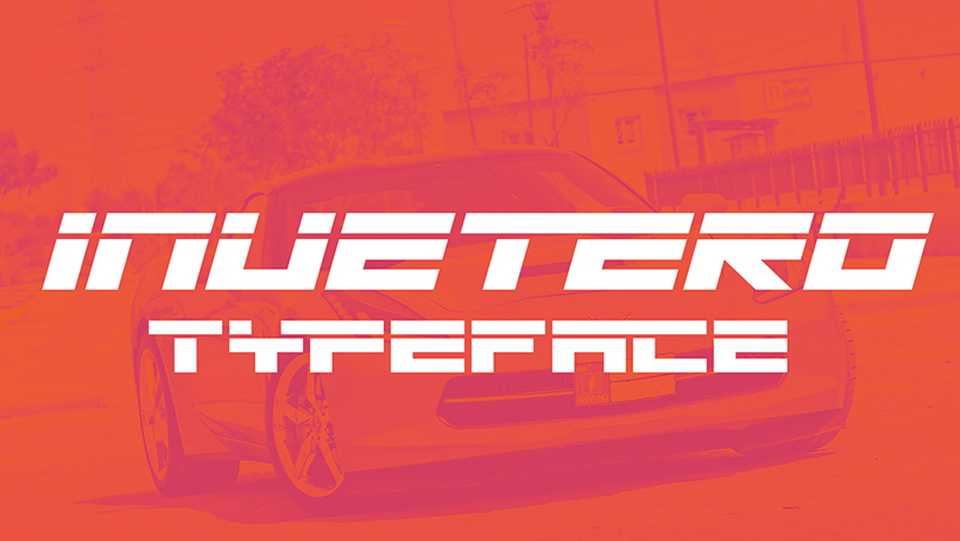
Download Invetero (stylised “inuetero”) typeface, a futuristic display font family in two styles based on an in-game brand from GTA IV & V. Invetero is ideal for bold headlines, posters and album artworks.